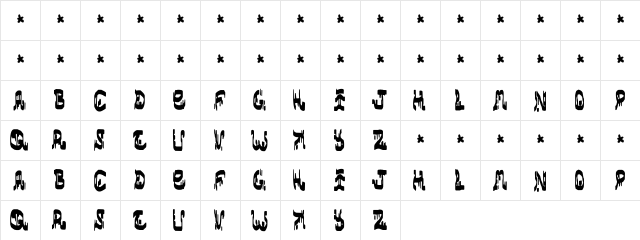
rathole. normal
Design Context for rathole. Typeface
rathole. is a composed and adaptable typeface that performs quietly and consistently across a wide range of design contexts.